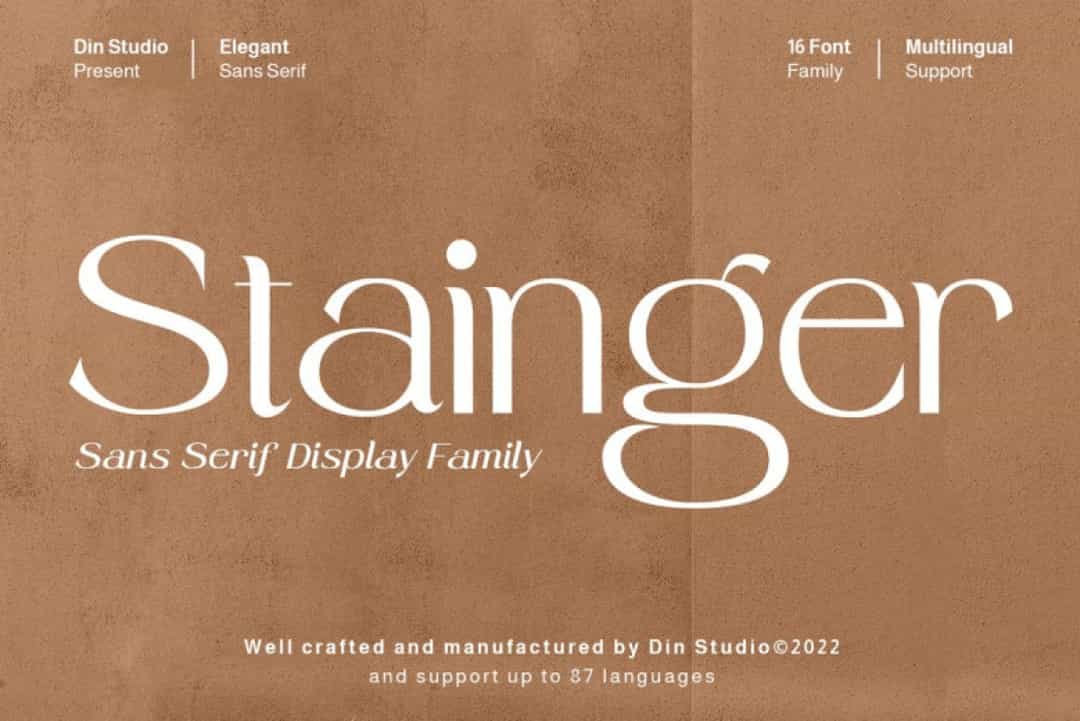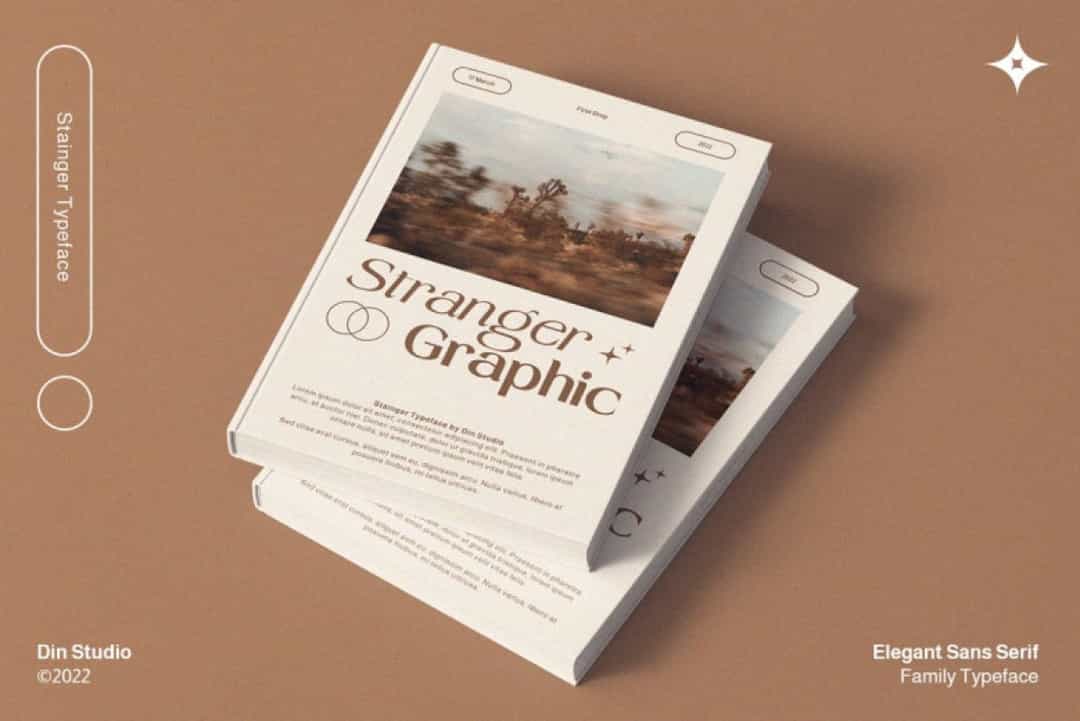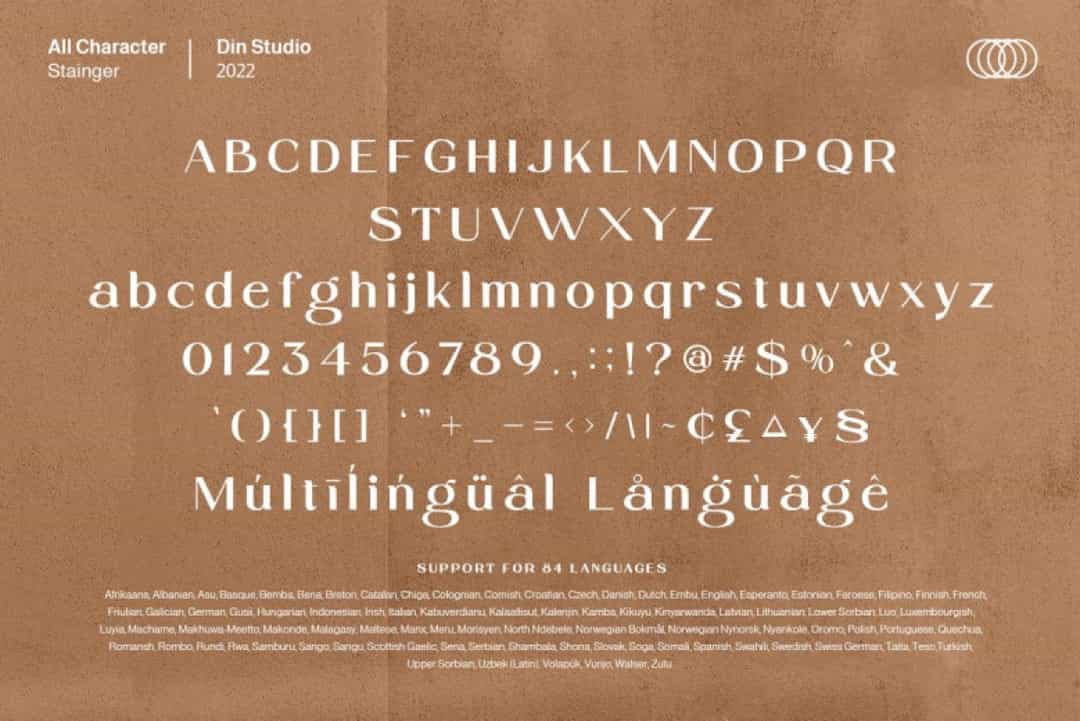
Created to meet the needs of users everywhere, Stainger provides innovative ways of communicating and improving designs. A font family with minimalist, modern characteristics. Stainger features 16 weights spanning light heavy italic styles. Easy and straightforward reading that works great for body text as well as header text.